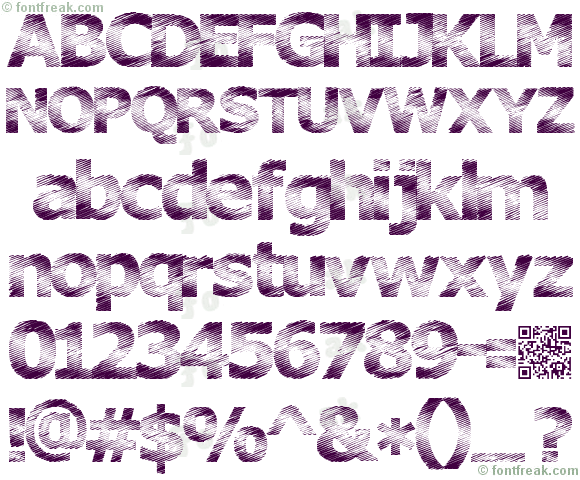
Plutonium
Plutonium by Xerographer Fonts is a striking display typeface that captivates with its unique visual style and character. This font is characterized by its bold, textured appearance, reminiscent of hand-drawn strokes that create a dynamic sense of movement. The varying stroke weights and slight contrast lend it an artistic flair, making it stand out in any design context. The spacing is thoughtfully designed to ensure readability while maintaining an engaging aesthetic, allowing the font to shine in both large and small applications.
This versatile typeface is ideal for a range of creative projects. It excels in crafting eye-catching movie posters, where its bold presence can draw viewers in and convey a sense of drama. Wedding invitations can benefit from its distinctive charm, offering a modern yet elegant touch that sets the tone for a special day. Restaurant menus will find Plutonium to be a perfect fit, adding a playful and artistic element that enhances the dining experience. Additionally, this font works wonderfully for branding materials, helping small business owners create memorable logos that resonate with their target audience.
What truly sets the Plutonium font apart is its ability to blend artistic expression with practical application. Its distinct hand-drawn quality combined with modern typography principles makes it a standout choice for anyone seeking to elevate their designs. Don’t miss the opportunity to enjoy the Plutonium font free download, and explore the creative possibilities it offers.